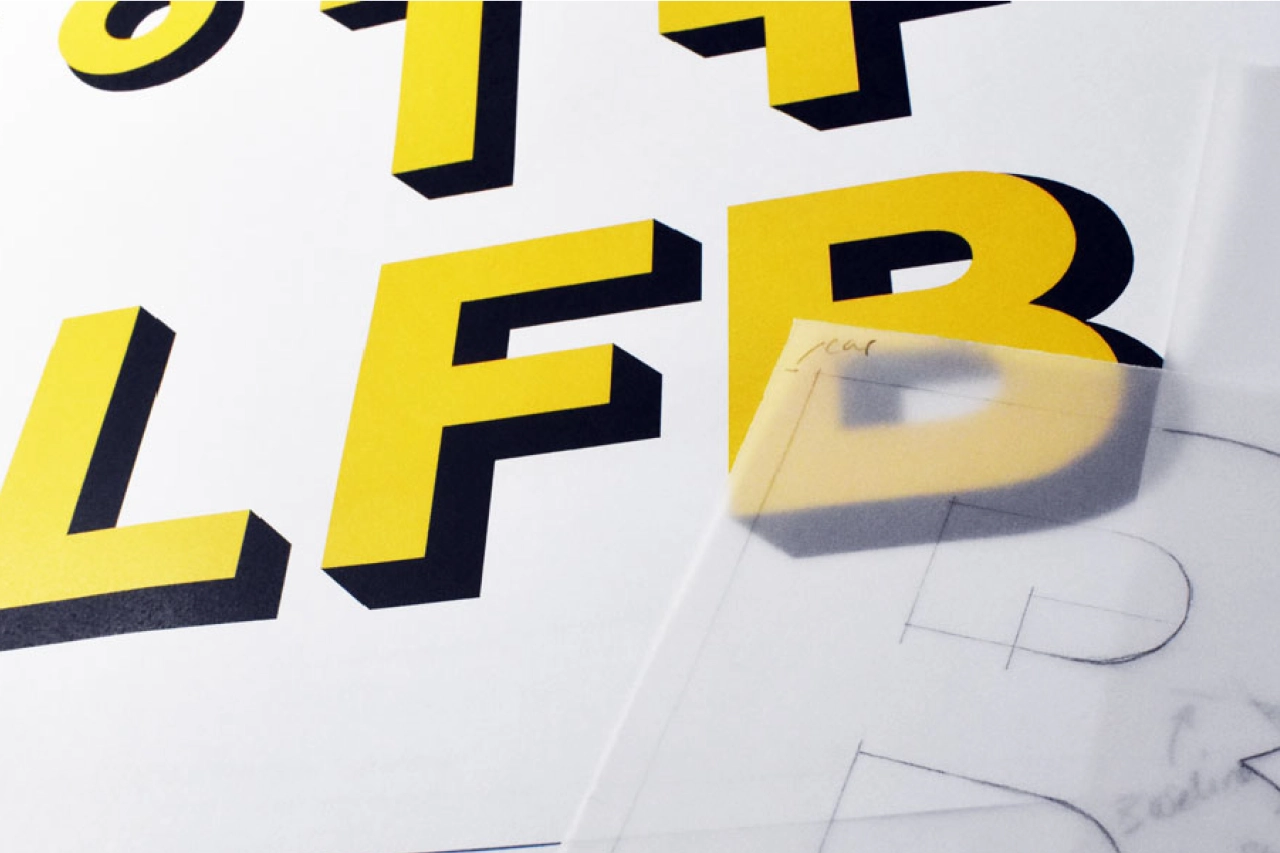
Lost and Foundry: Campaign recovers the crumbling typefaces of Soho to help the homeless
The House of St Barnabas has launched Lost and Foundry. Developed by M&C Saatchi London and Fontsmith, the campaign sees the crumbling typefaces of Soho recovered to be sold online as a collection of fonts, to fund the charity's vital work with London’s homeless.
To develop the fonts, M&C Saatchi London collected images of forgotten lettering in Soho, with seven selected to be hand-drawn and turned into a fully functioning font by Fontsmith. This involved adapting and extending the missing characters to make useful and crafted designs out of them, with it taking three months to digitise and design a workable series of fonts.
The fonts have also inspired seven original artworks from seven UK-based artists and designers famed for their use of typography. These works will be available to buy from the House of St Barnabas at the font launch event today, Tuesday 10 July. Each artist has used a different font from the collection. The artists contributing are Morag Myerscough, Anthony Burrill, Steven Wilson, Dangerous Minds, Smile, Supermundane and I Love Dust. Funds raised from the sale of artwork are being donated to the House.
"The House of St Barnabas has existed in one form or another since 1846," said Sandra Schembri, Chief Encouragement Officer at The House of St. Barnabas. "That’s quite a legacy to build on. We’ve been operating as a social business and charity since 2013, and are proud of our innovative model which helps to support people affected by homelessness back into lasting work.
"But, for us to keep supporting people in this way, we need to keep innovating too. Lost & Foundry is the culmination of a unique partnership between the House, M&C Saatchi and Fontsmith which taps into Soho’s history, creativity and originality to help us raise vital funds and support more people back into paid work."
Jason Smith, Founder and Creative Director, Fontsmith, said: "I once heard a radio DJ saying to look up when you walk around London. That’s exactly what we did for this project. In Soho, you see this mix of architecture and lettering, plaques, neon, and an abundance of weathered signs. We’ve restored these with the aim of raising awareness of the House, and with the hope that the creative community of Soho and beyond purchases the fonts with this worthwhile charity in mind."
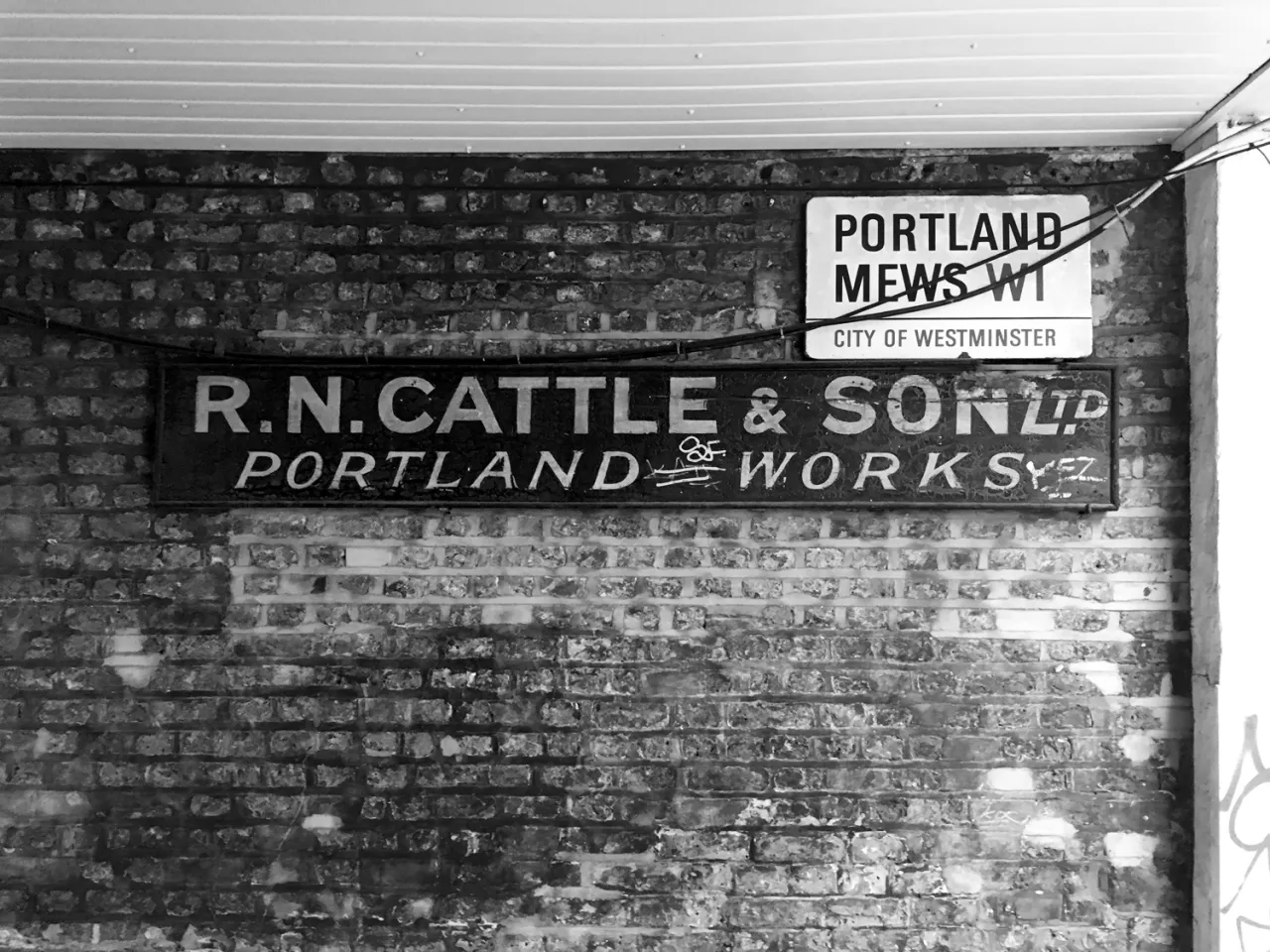
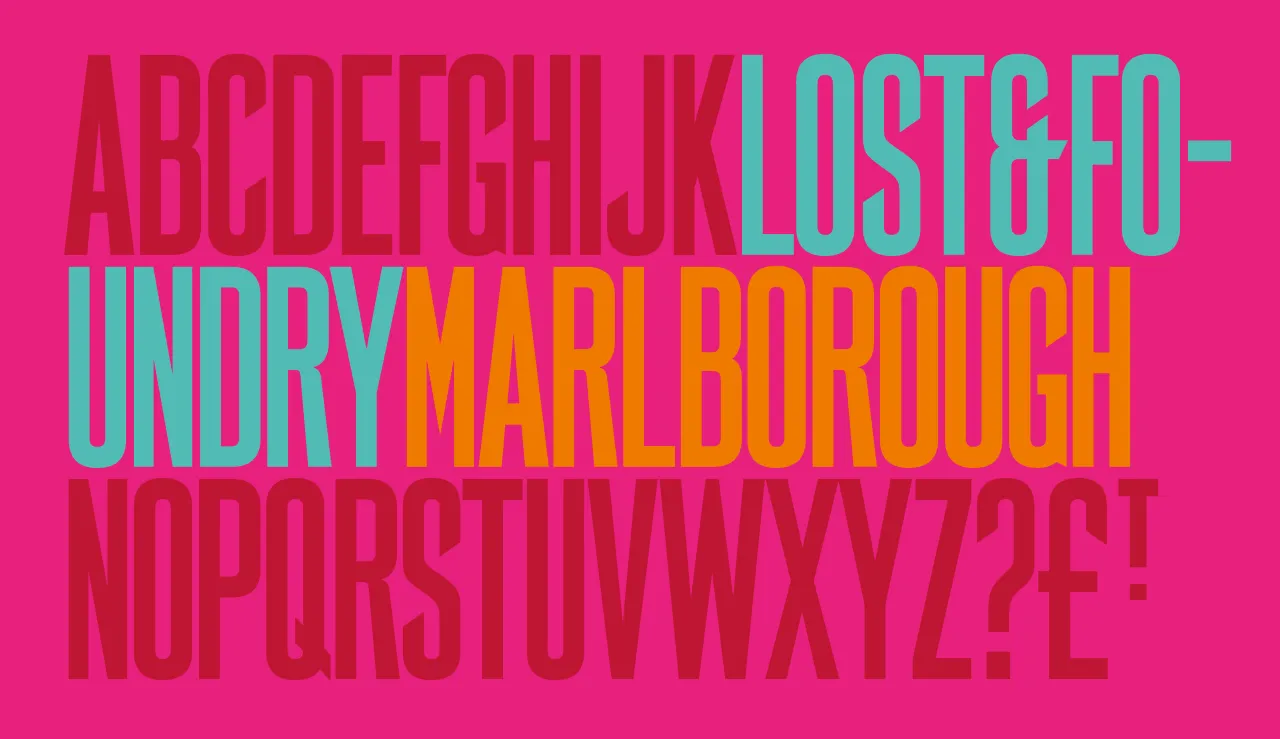
FS MARLBOROUGH
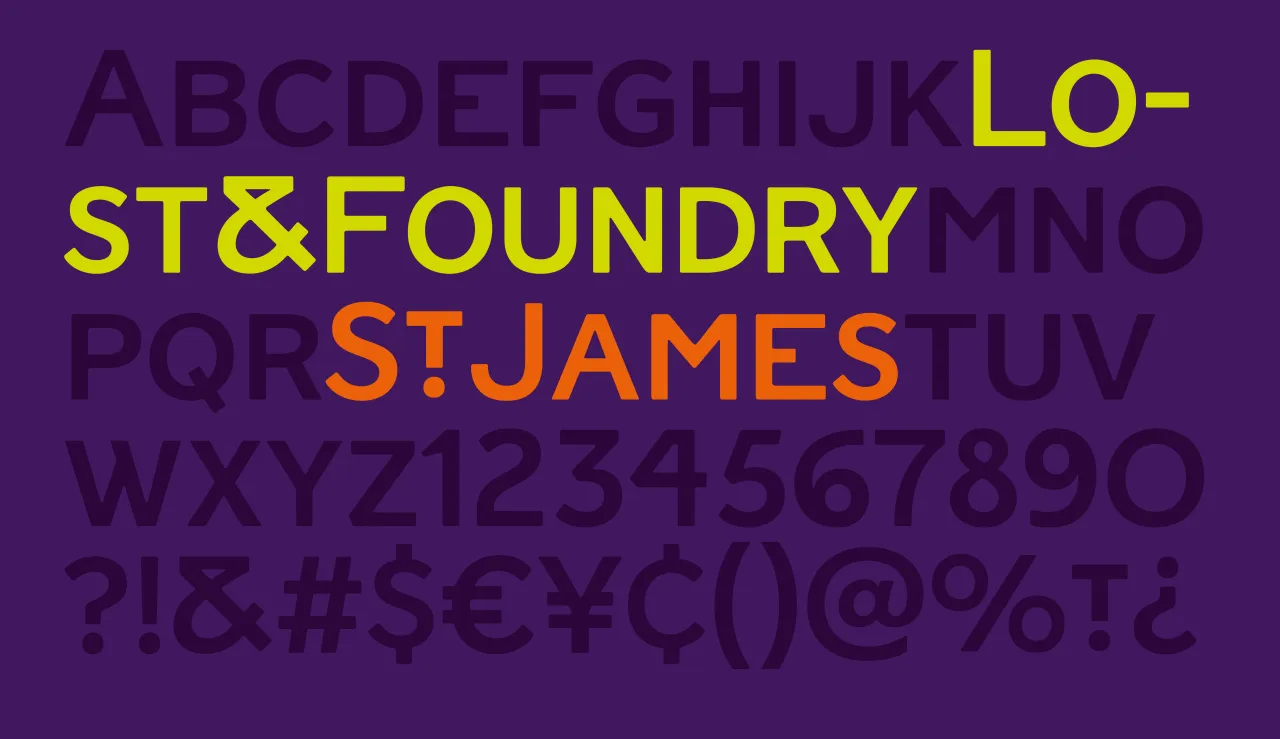
FS ST JAMES
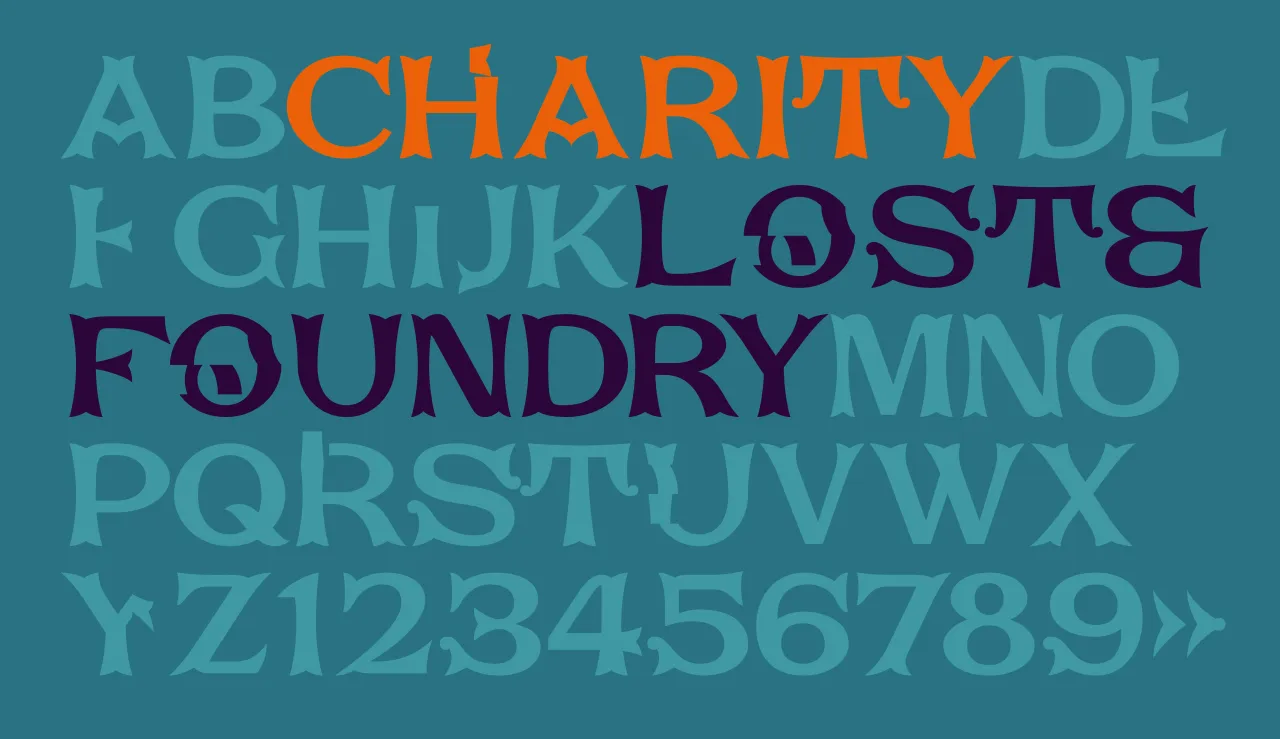
FS CHARITY
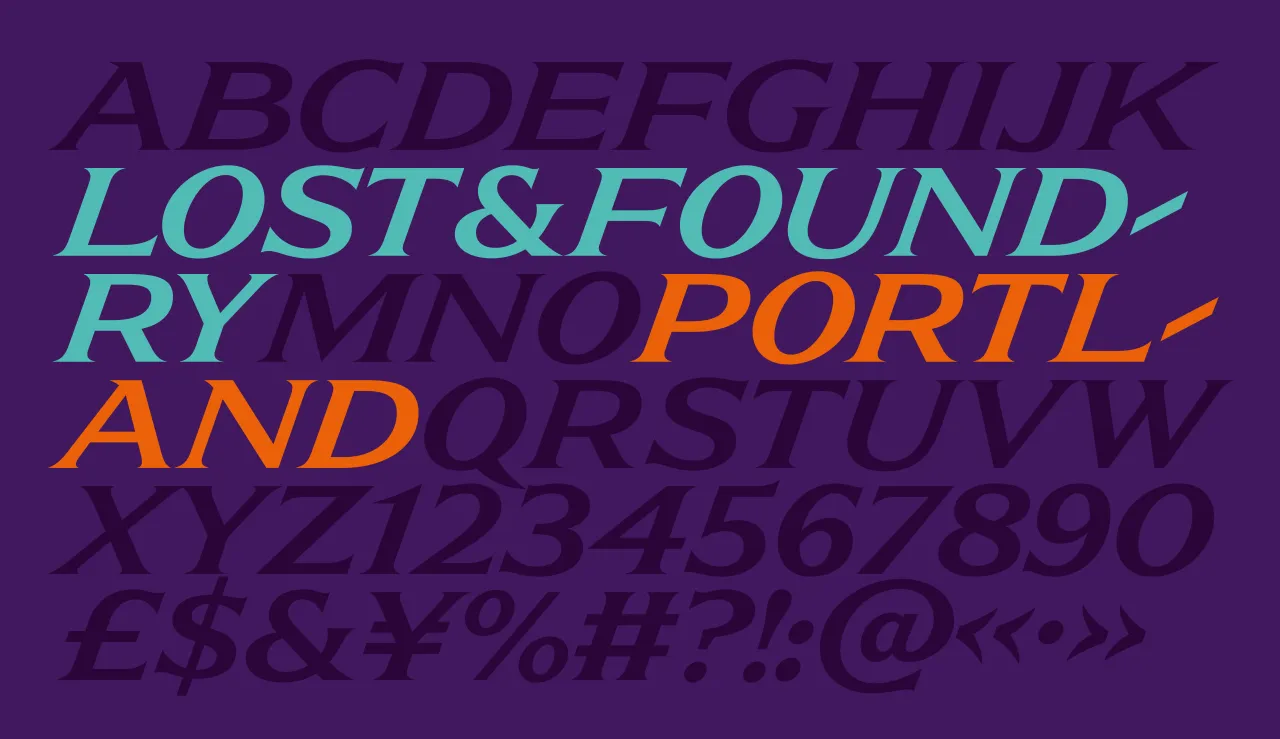
FS PORTLAND
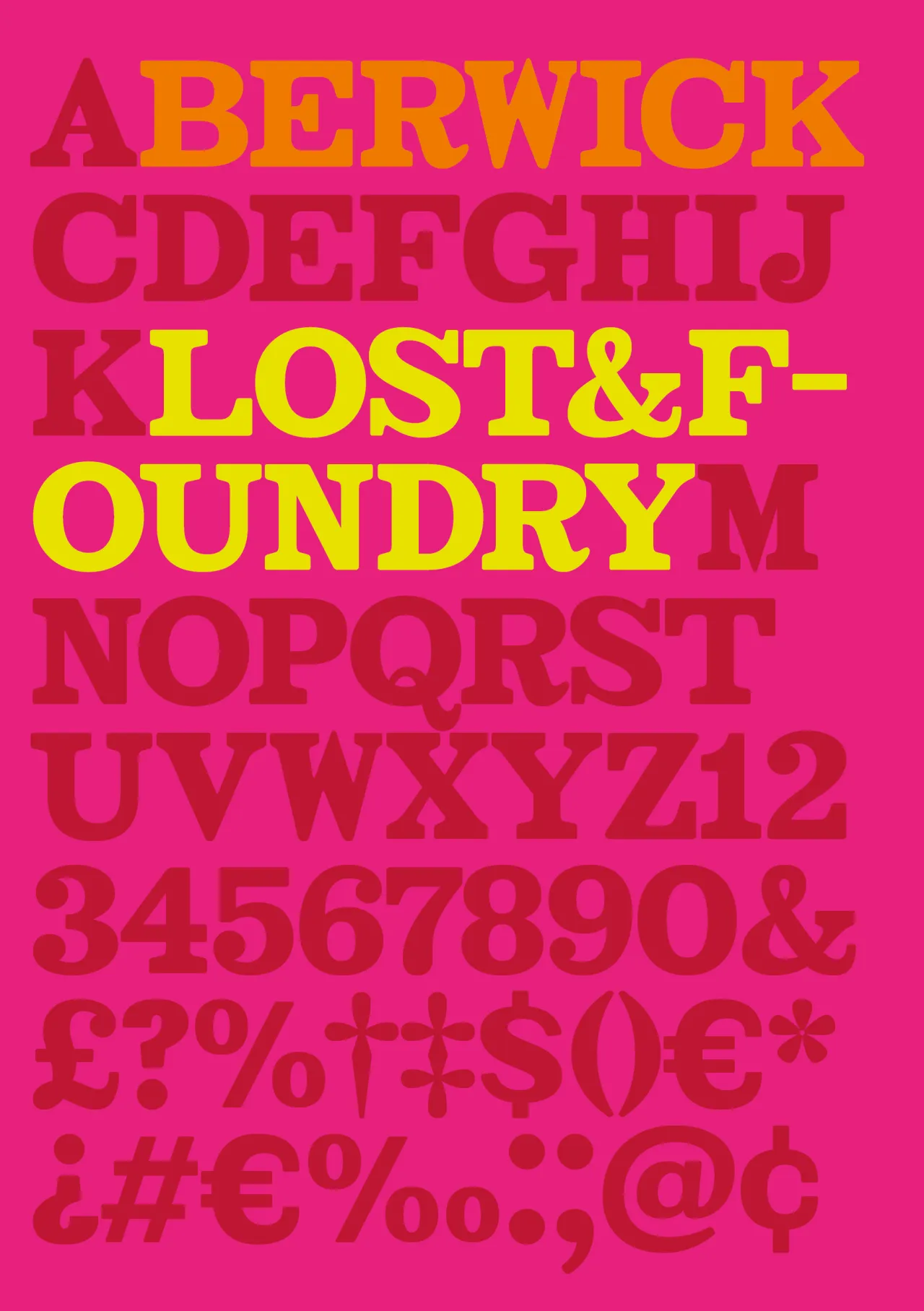
FS BERWICK
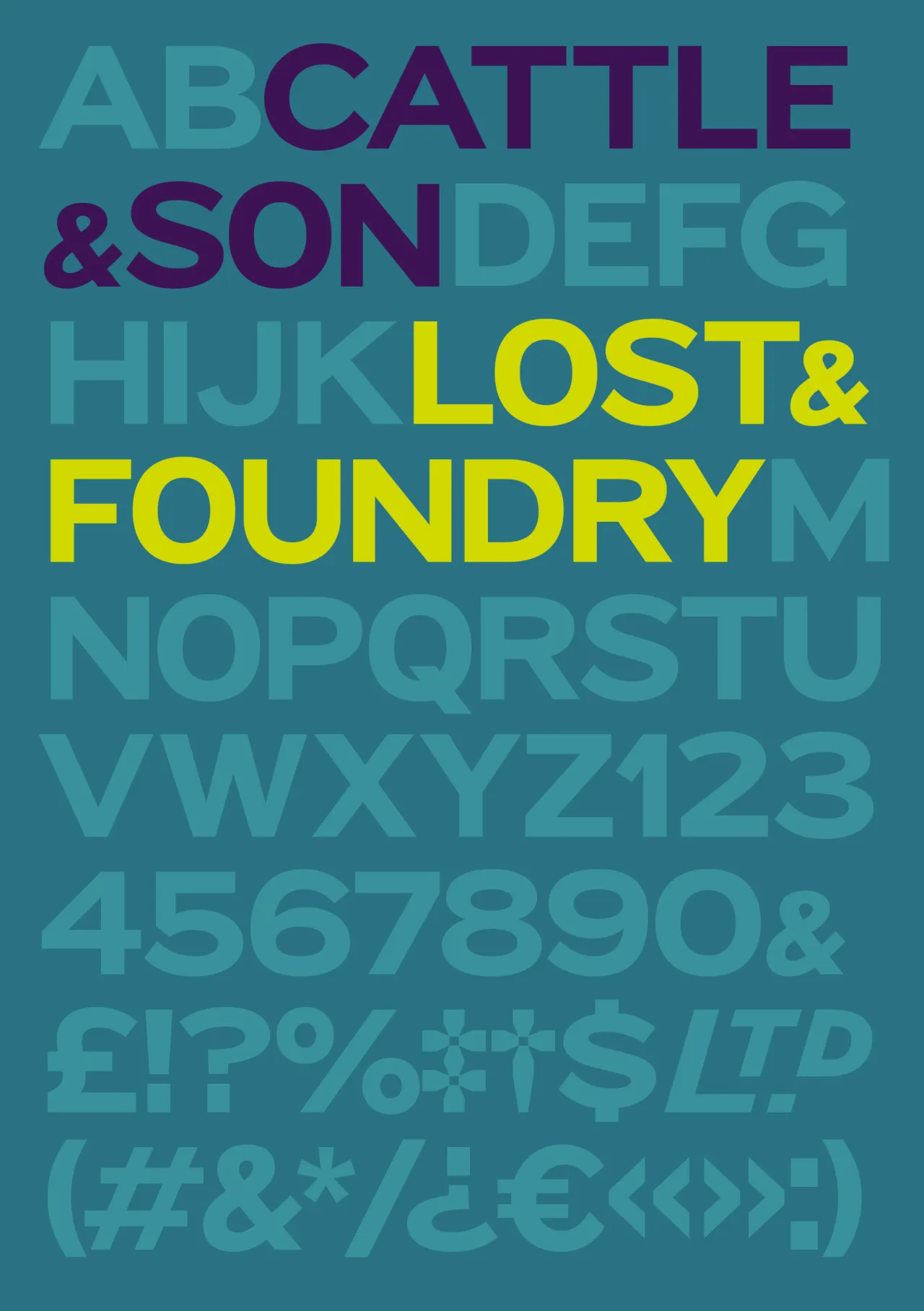
FS CATTLE
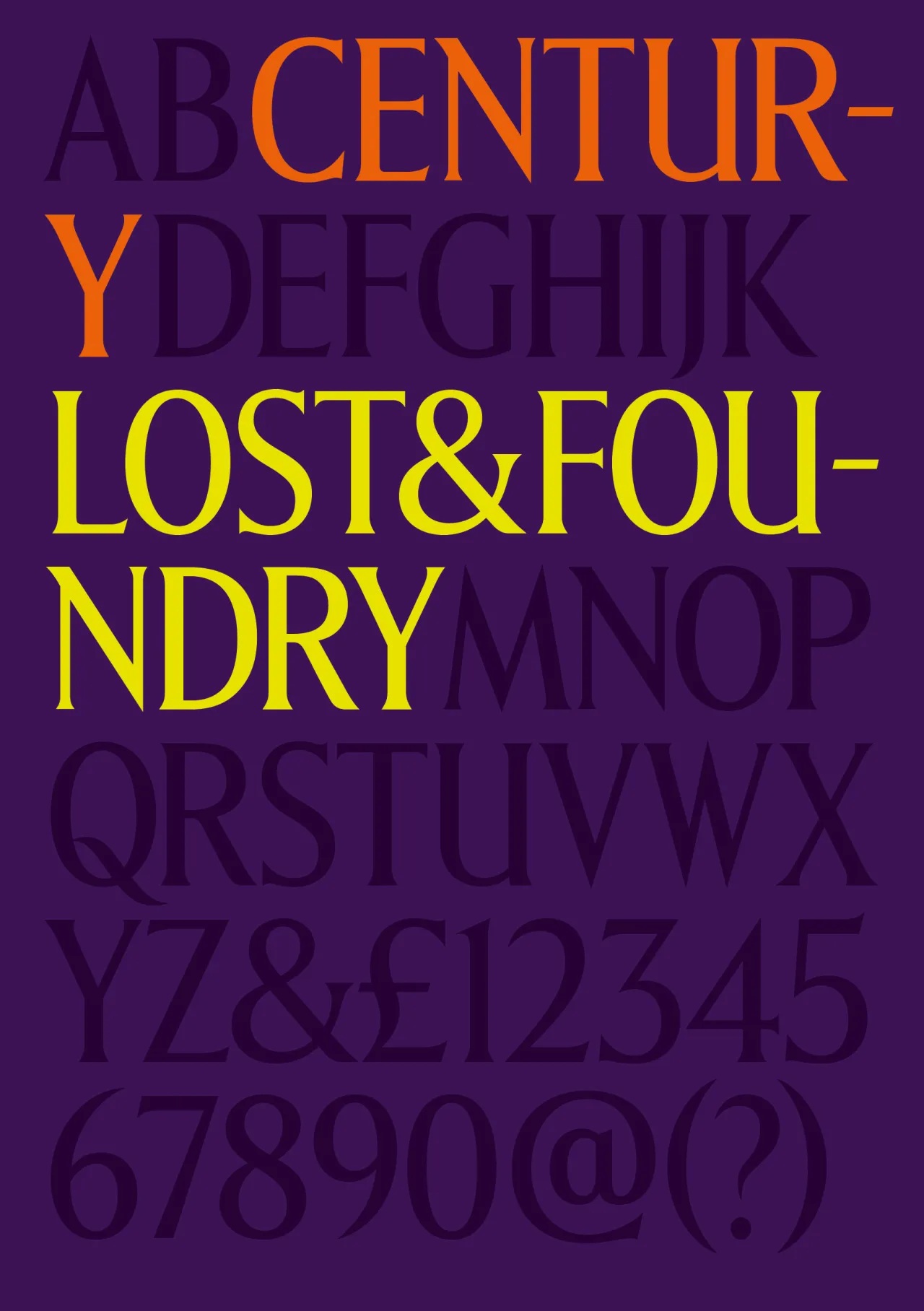
FS CENTURY